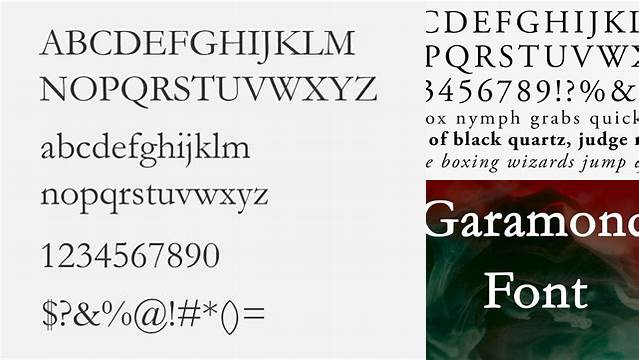
Introduction: Unveiling the Timeless Elegance of Garamond
Garamond, a typeface that exudes timeless elegance and readability, has been a favorite among designers and typographers for centuries. This font, with its classic serifs and graceful letterforms, lends a touch of sophistication to any project. Its versatility makes it suitable for a wide range of applications, from books and magazines to websites and branding materials. If you're on the hunt for Garamond font free download TTF, you've come to the right place. In this comprehensive guide, we'll delve into the history of Garamond, explore its unique characteristics, discuss its various applications, and, most importantly, show you where to find free Garamond font downloads in TTF format. So, guys, let’s dive in and uncover the beauty of Garamond!
The History and Evolution of Garamond
To truly appreciate Garamond's enduring appeal, it's essential to understand its rich history. The Garamond typeface family traces its roots back to the 16th century, with the work of Claude Garamond, a renowned Parisian type designer. Garamond's original designs were based on the Aldine Roman typeface, created by Francesco Griffo for the Venetian printer Aldus Manutius. Claude Garamond's genius lay in his ability to refine and perfect these earlier forms, infusing them with his own distinctive style. His types were characterized by their elegance, clarity, and balance, quickly becoming the gold standard for printing across Europe. Over the centuries, Garamond's designs have been reinterpreted and adapted by numerous foundries, resulting in a diverse family of Garamond fonts. Each variation possesses its own unique nuances, but all share the core characteristics that define the Garamond aesthetic. From the classic Adobe Garamond to the contemporary EB Garamond, the Garamond family continues to evolve, ensuring its relevance in the digital age. Understanding this history helps us appreciate the legacy we're tapping into when we seek a Garamond font free download TTF today. It's not just a font; it's a piece of design history.
Unique Characteristics of the Garamond Font
What makes Garamond so special? It's the subtle details that contribute to its overall beauty and readability. The font features delicate serifs, the small strokes at the ends of the main strokes of the letters, which give it a classic and refined appearance. The letterforms are elegantly proportioned, with a harmonious balance between thick and thin strokes. Garamond's lowercase letters have a generous x-height, the height of the main body of the lowercase letters, which enhances readability. The italic version of Garamond is particularly graceful, with flowing curves and a distinctive calligraphic feel. These features combine to create a typeface that is both aesthetically pleasing and highly functional. Garamond excels in long-form text, making it an ideal choice for books, magazines, and articles. Its elegance also makes it suitable for branding materials, such as logos and stationery. Whether you're designing a classic novel or a modern website, Garamond can add a touch of sophistication and readability. So, when you're searching for a Garamond font free download TTF, remember you're not just getting a font; you're getting a typeface with a unique character and a proven track record.
Conclusion: Embrace the Timeless Beauty of Garamond
In conclusion, Garamond is a timeless and versatile typeface that can enhance a wide range of design projects. Its elegant serifs, balanced letterforms, and excellent readability make it a favorite among designers and typographers. Whether you're working on a book, a website, or a brand identity, Garamond can add a touch of sophistication and professionalism. Finding a Garamond font free download TTF is easier than you might think, with resources like Google Fonts and Font Squirrel offering high-quality options. Remember to always check the licensing terms before using any font, especially for commercial purposes. With its rich history and enduring appeal, Garamond is a typeface that will continue to be cherished for generations to come. So, go ahead, guys, explore the world of Garamond and discover its timeless beauty for yourselves! Happy designing!